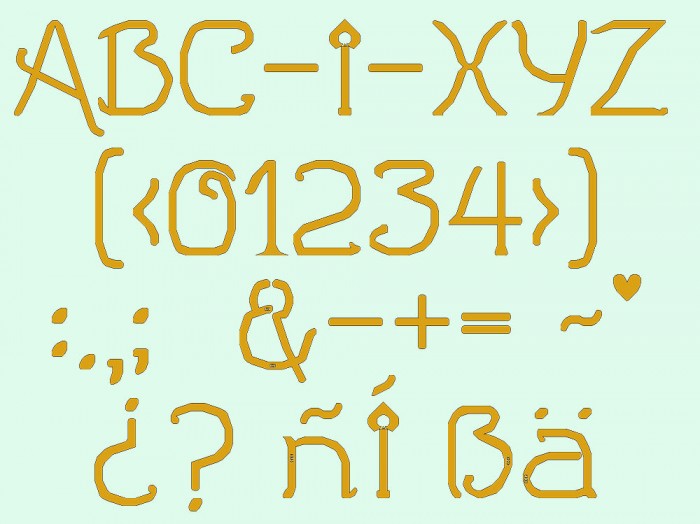
• My 'serious' entry for the LoveComp 2016. The dents and hollows in the lines are intentional, the unevennes is an illustration. Love is not a "simple straight-edged neatly tidied" feeling nor a life-long dream-manufactured perfect experience. Every Love has those swirling and rambling sensations and discoveries as well as some uneven blinks-of-an-eye like those dents and bumps in this font, when things and feelings are more like each person involved: complexity needing learning and understanding, uncertainty requiring thoughtfulness and cooperation to smooth things out. Over the years of learning about each other we discover that those uneven areas are part of Nature's magick called Love. We discover that there is only one person like this unique one we love because of what and how they are ......... The name is Spanish ;)
It could almost be the hand drawn script of a lovelorn swain (or swainess???)
Beautiful description of what love encompasses.
Ah . . . uniqueness. Each of us is that, and yet we are all connected, or rather, interconnected through the highest form of energy, which is what most people call love. Love is actually tachian energy, the Collective Unconscious, but all emotions can be ascribed to it. Love itself is, quite simply, the energy that makes up everything in existence. Lovely font, by the way. :)
Since publishing I have sharpened some outlines and added glyphs. Plus I adjusted the space around the heart deco of the LC to make it more noticeable. These changes are not visible in the samples due to sample size. I need to discover the maximum size for samples to avoid imprecision in delicate areas such as the hearts.
I wonder how much work and time went into this?! Every glyph is pretty unique, and overall feeling is a hand drawn script-like font. The stroke weight for k seems a little thick, and x's style seems different though. Thank you for sharing!
@ architaraz: thank you for that observation, they did look strange to me as soon as you pointed them out. I have changed the x to look more hand drawn and the k is slimmer.
I  removed a strange line of bricks (no idea where it came from), changed the "*" and increased the spacing by 0.1. I noticed that 4 people downloaded this font: contact me ...  :)